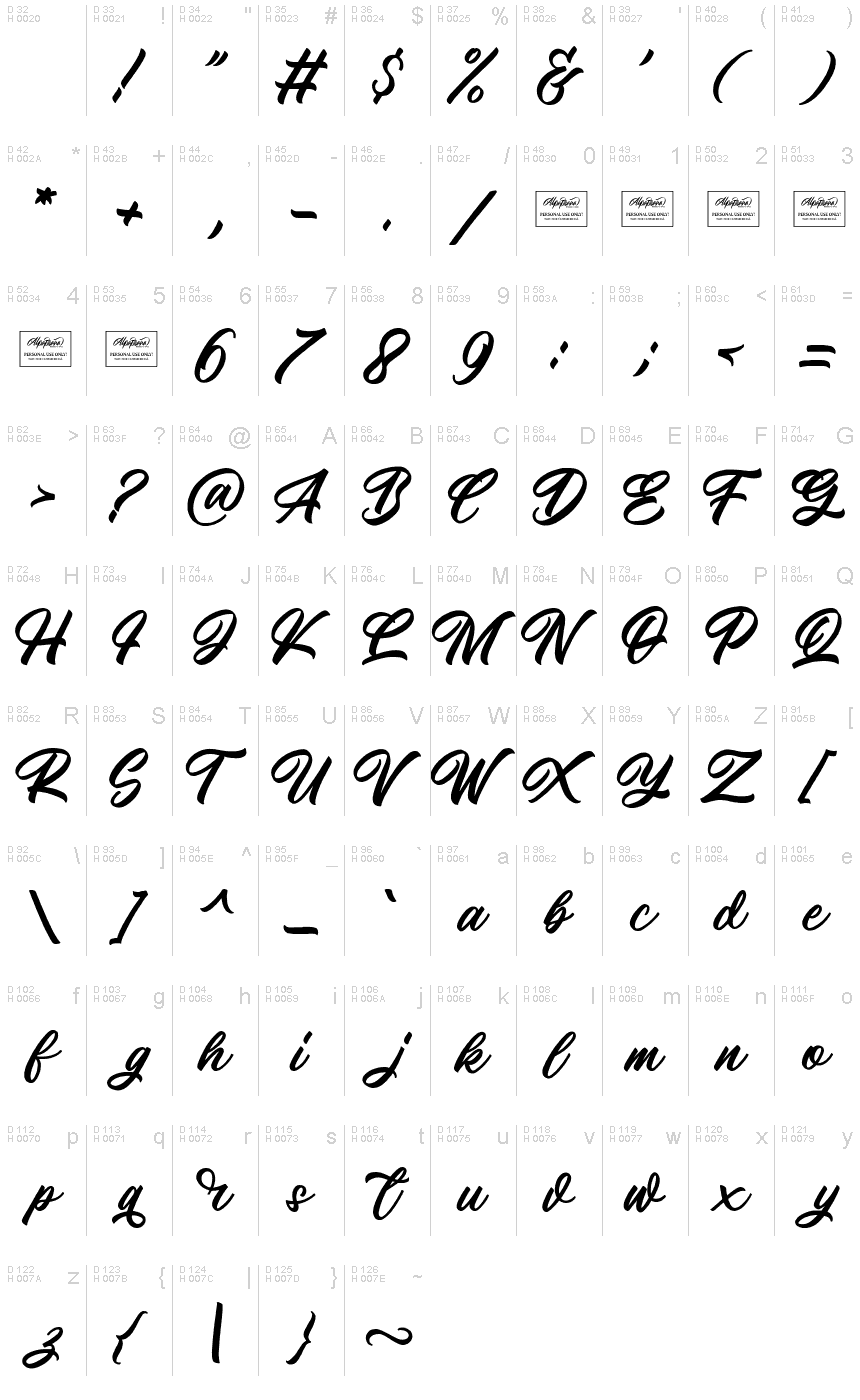
Kingham
Kingham, a stunning script font designed by Alpaprana Studio, is perfect for adding a modern calligraphy touch to any project. This versatile font is ideal for invitations, logos, branding designs, and more!